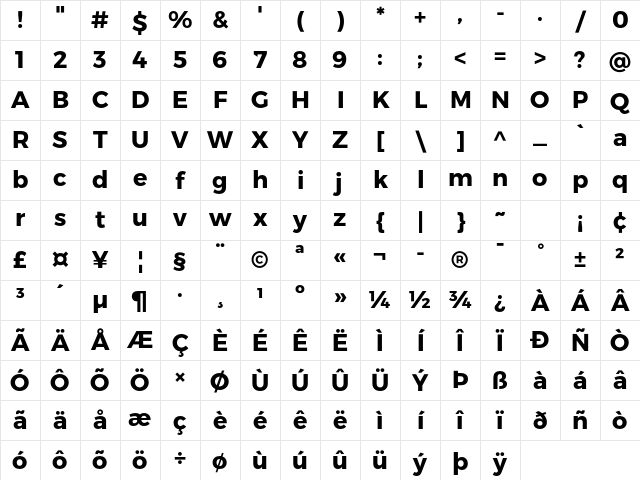
Complete Trueno Bd glyph index. Displaying only characters natively supported by Trueno Bd font.
Trueno is a composed and adaptable typeface that performs quietly and consistently across a wide range of design contexts. Its bold stroke weight gives it real presence on the page.